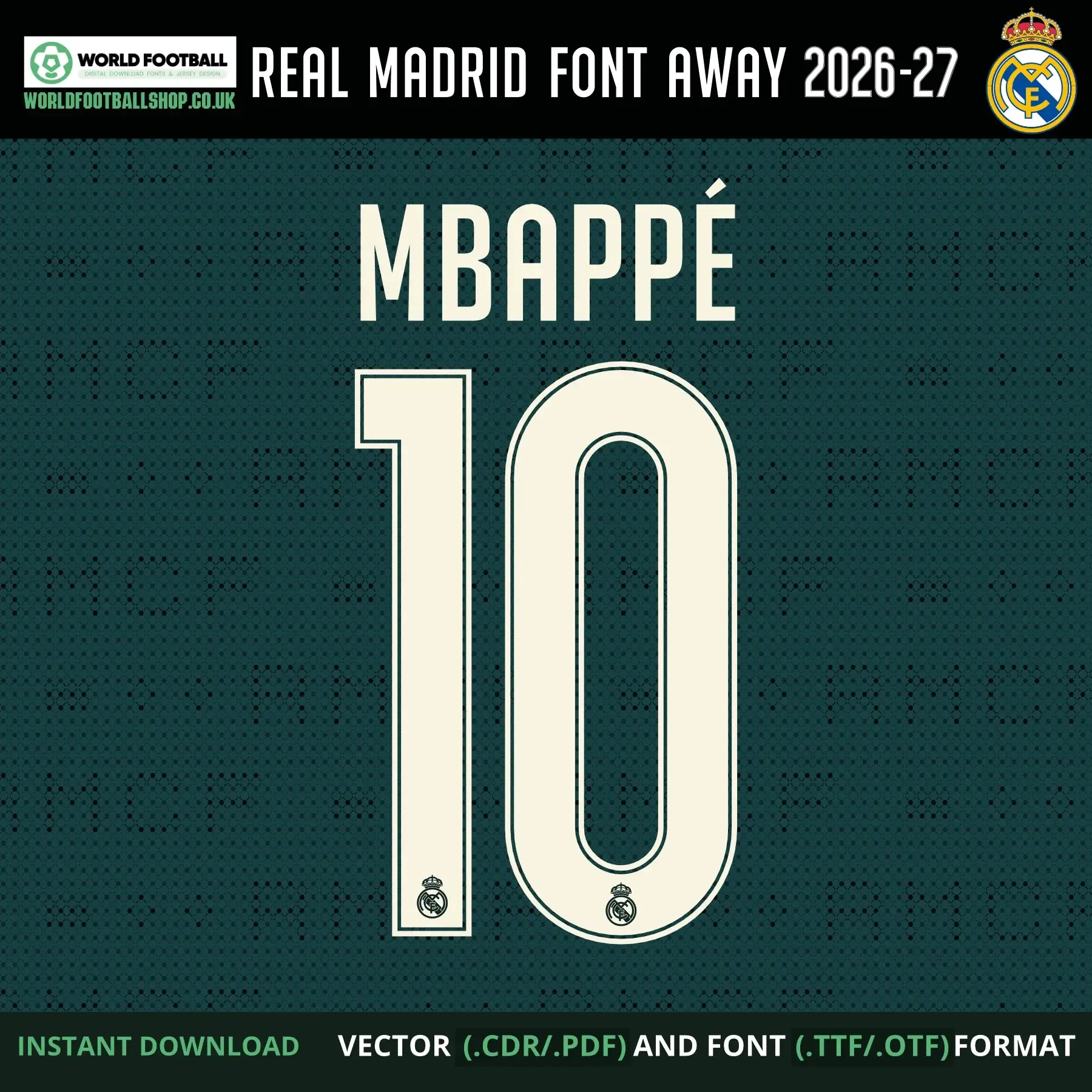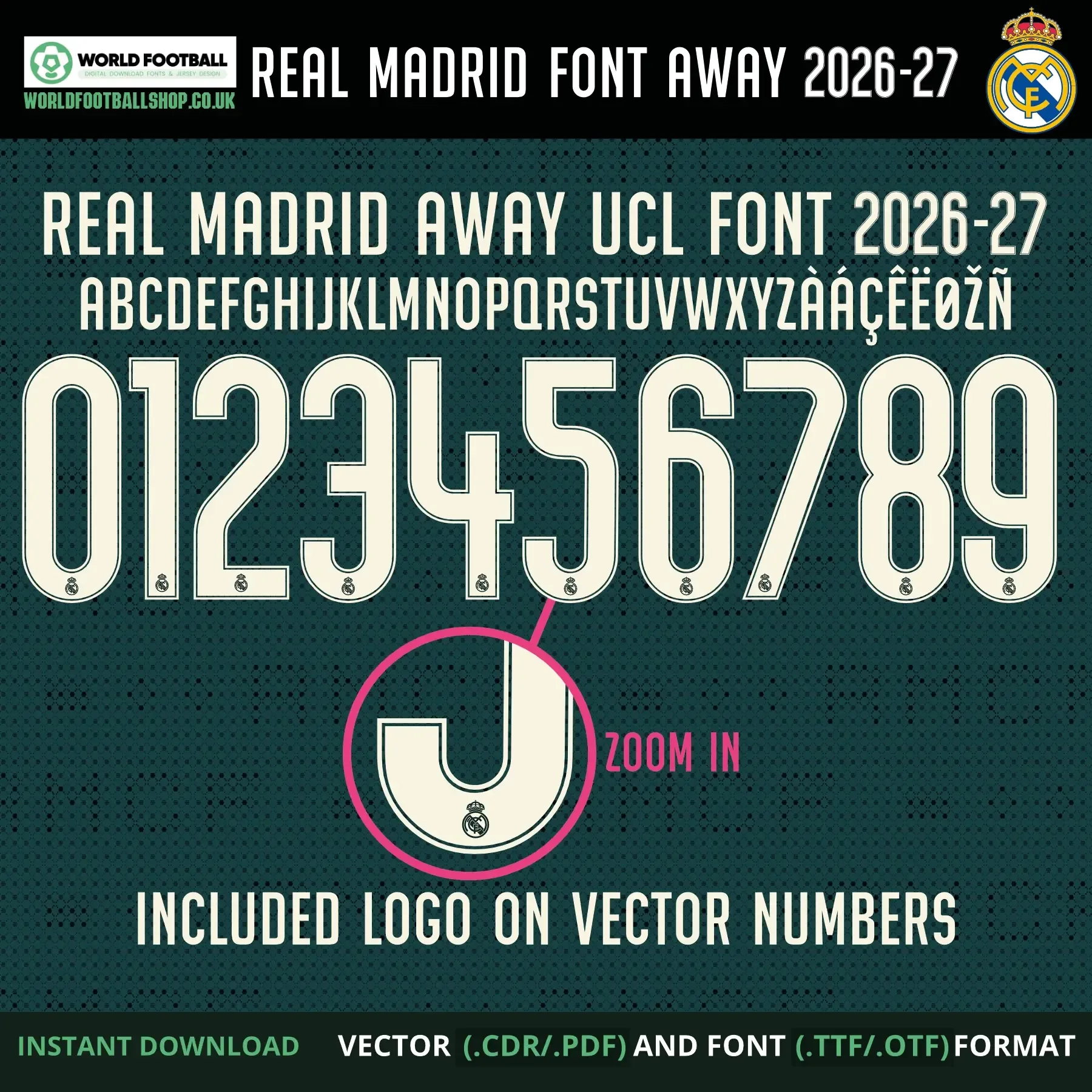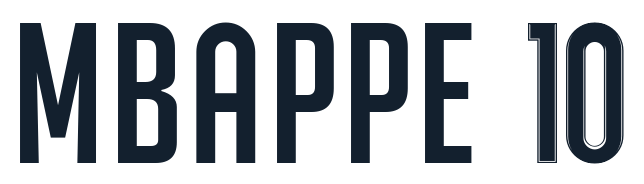
Real Madrid 2026-27 Football Font Vector Away UCL
Real Madrid 2026-27 Football Font Vector Away, inspired by the style of Real Madrid's away kit lettering for the Champions League. Includes TTF and OTF font files plus CDR and PDF vector files, with a full A-Z alphabet, numbers 0β9, and accented characters (Γ, Γ, Γ, Ε½, Γ). Instant digital download - no physical product is shipped.
Real Madrid's 2026-27 away kit brought back green for the first time in years - an "Aurora Ivy" base with a geometric pattern inspired by the club crest - paired with a redesigned kit font football that's noticeably taller and narrower than the previous season's blockier style. This Real Madrid football font vector captures that look: cream lettering with a dark teal outline, set against a deep green background with a subtle diamond-pattern texture, with the club crest embedded at the base of every letter and number. The preview layout shows the full character set alongside a sample name and number combination - MBAPPΓ 10 - to demonstrate how the font looks applied.
- Tall, narrow cream-on-green styling reflects Real Madrid's redesigned 26-27 typography
- Crest detail embedded on every character for a cohesive, kit-inspired look
This font is an independent recreation, studied closely from the away kit's actual lettering to capture its proportions, outline style, and crest placement. It's built for jersey mockups, fan art, matchday graphics, and personal creative projects.